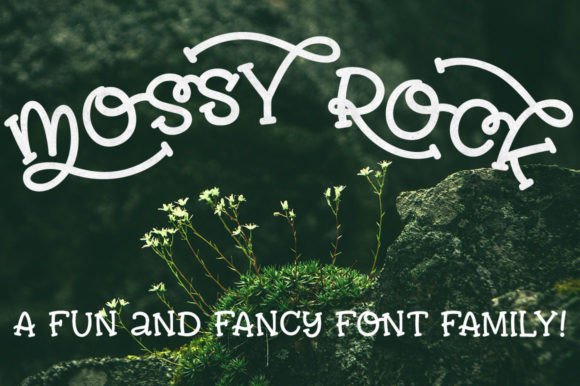
Get ready to let your imagination flourish with Mossy Rock, the whimsical and captivating font trio that breathes life into your creative endeavors!
Mossy Rock 1, the foundation of this extraordinary set, exudes a delightful quirkiness that dances across your designs. Its lowercase and uppercase characters stand at equal height, inviting you to play with letter combinations and create captivating visual symphonies.
But the enchantment doesn't end there! Mossy Rock 2 ascends to new heights with its graceful swashes and whimsical embellishments that adorn the uppercase characters. The lowercase and numbers, however, retain the playful spirit of Mossy Rock 1, ensuring a harmonious blend that delights the eyes.
Prepare to be spellbound by Mossy Rock 3, the boldest of the trio, where unbridled creativity reigns supreme. Swirls and loops entwine elegantly across every letter, inviting you to unleash your imagination and craft mesmerizing designs that captivate the senses.
The beauty of Mossy Rock lies not only in its individual fonts but in their magical synergy. Mix and match the three styles to conjure an endless array of unique combinations that reflect your extraordinary vision.